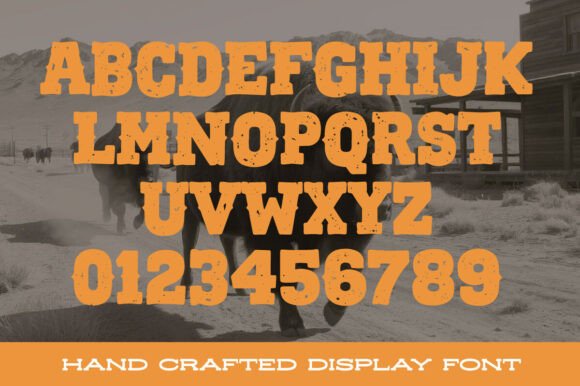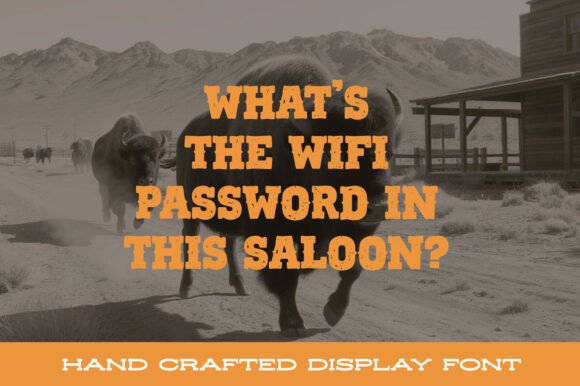
Buffalo Stomp Font
Buffalo Stomp is a bold, rugged Western-style font with a heavy, distressed appearance, as if it’s been trampled by a stampede of buffalo. The letters have rough edges, uneven textures, and subtle cracks or worn-out spots that give it an authentic, weathered look. The style resembles old frontier signage, cattle brands, or saloon posters, making it perfect for anything with a Wild West or rustic theme.It features a slightly irregular baseline and a blocky, slab-serif structure, reinforcing the idea of something strong, untamed, and full of movement—just like a buffalo stampede.